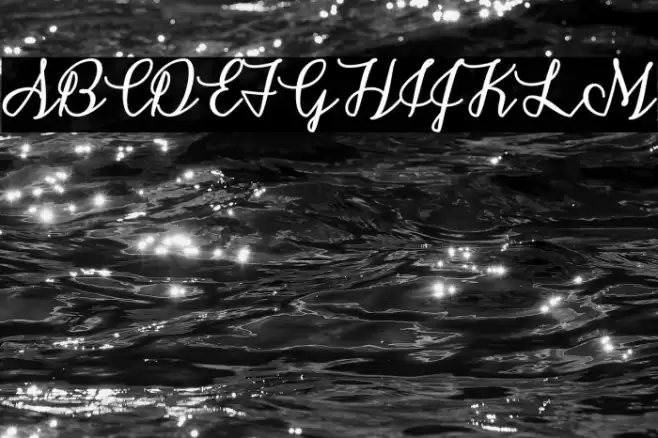
SnowflakeCalligraphy Font
SnowflakeCalligraphy Description
This elegant script font features flowing, interconnected letters that mimic the fluidity of traditional calligraphy. The uppercase letters are ornate, with sweeping curves and loops, while the lowercase letters maintain a consistent, smooth flow. The numbers and special characters are designed to complement the overall style, adding a touch of sophistication. The font's delicate strokes and graceful lines make it ideal for projects that require a touch of elegance and refinement.
A graceful and flowing script font with elegant, interconnected letters from Uncategorized fonts.